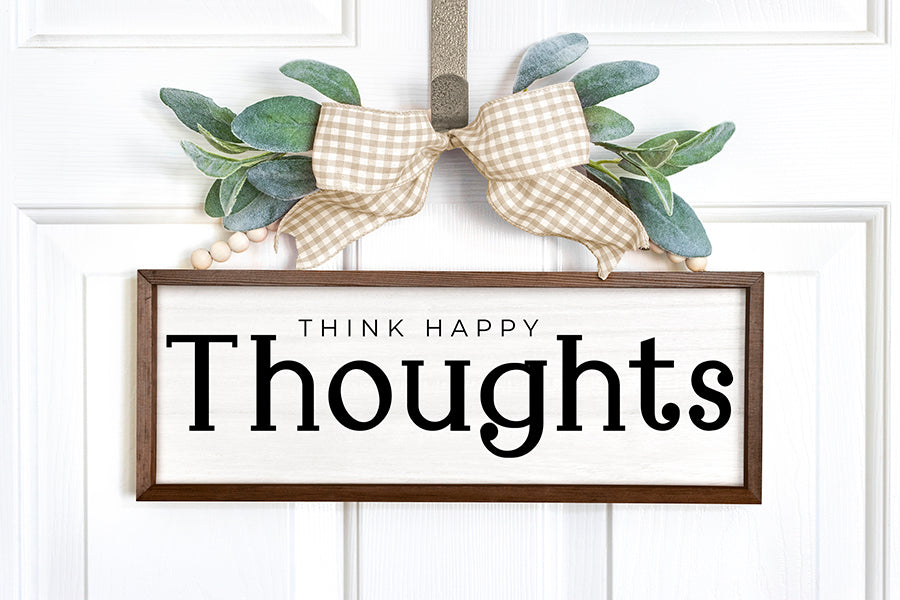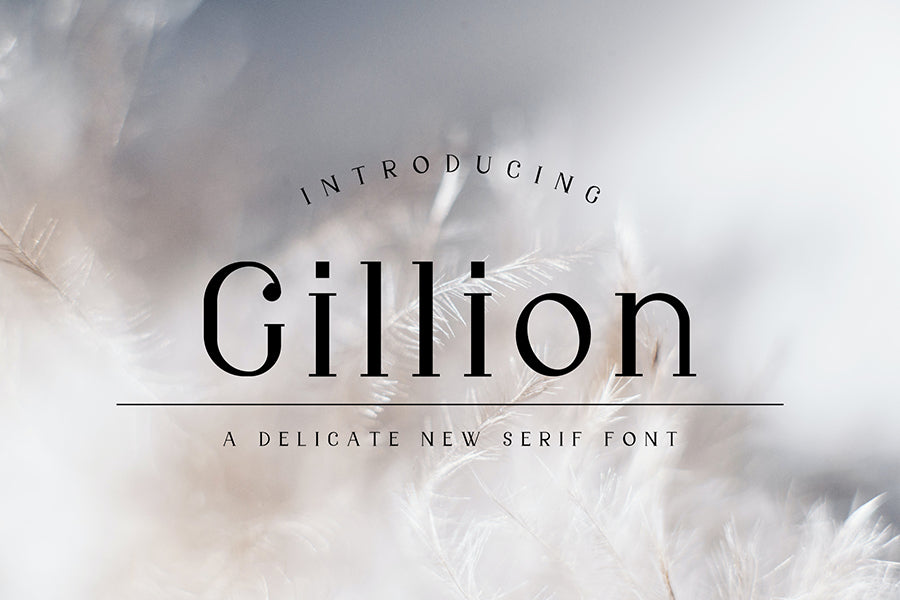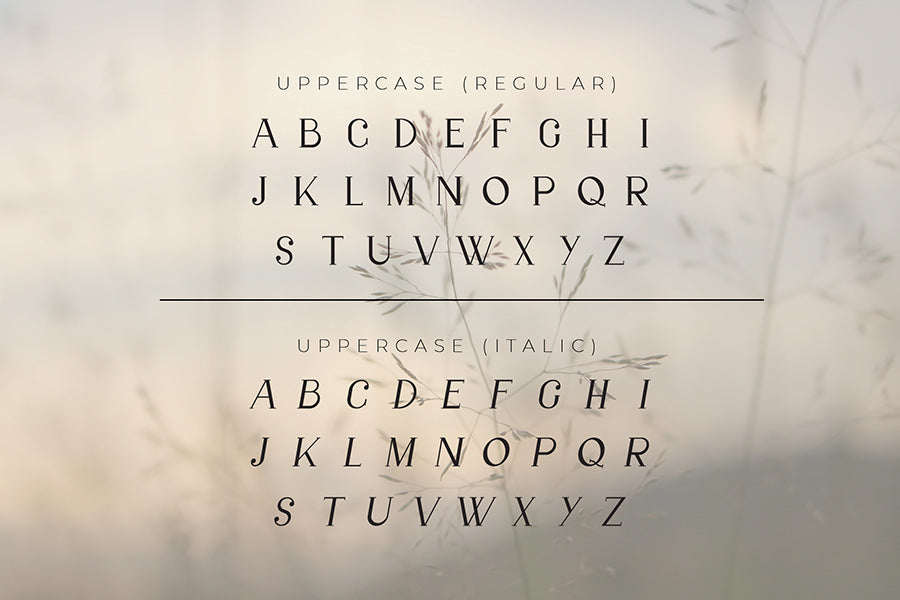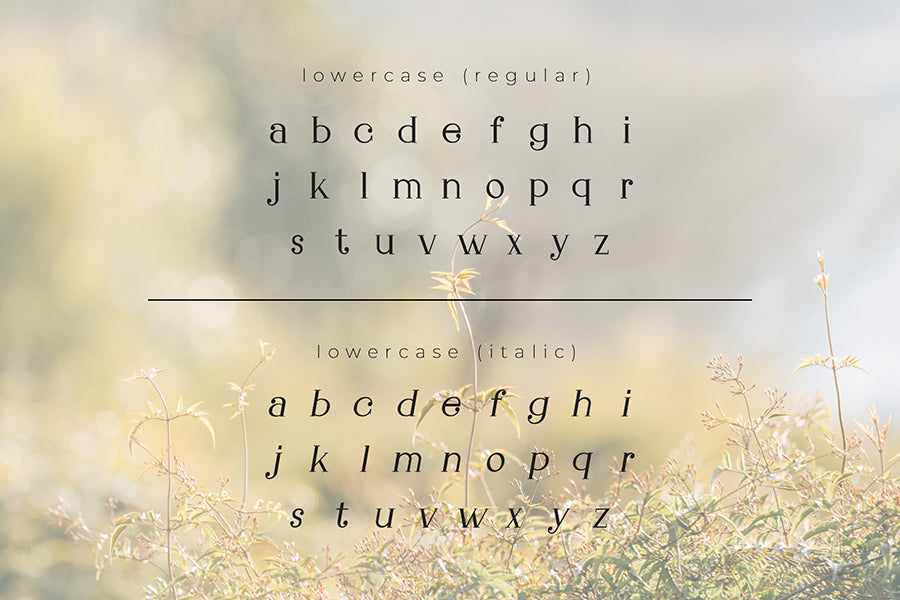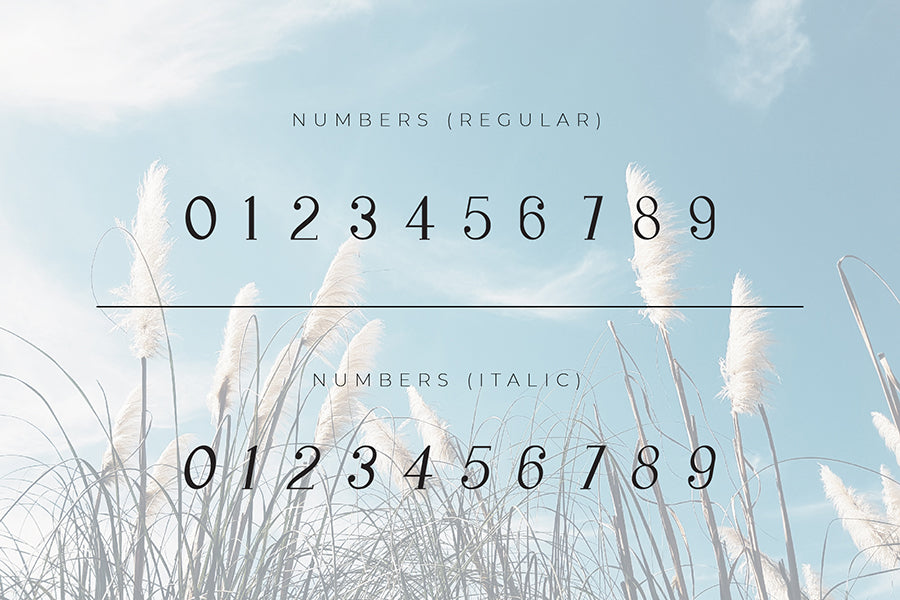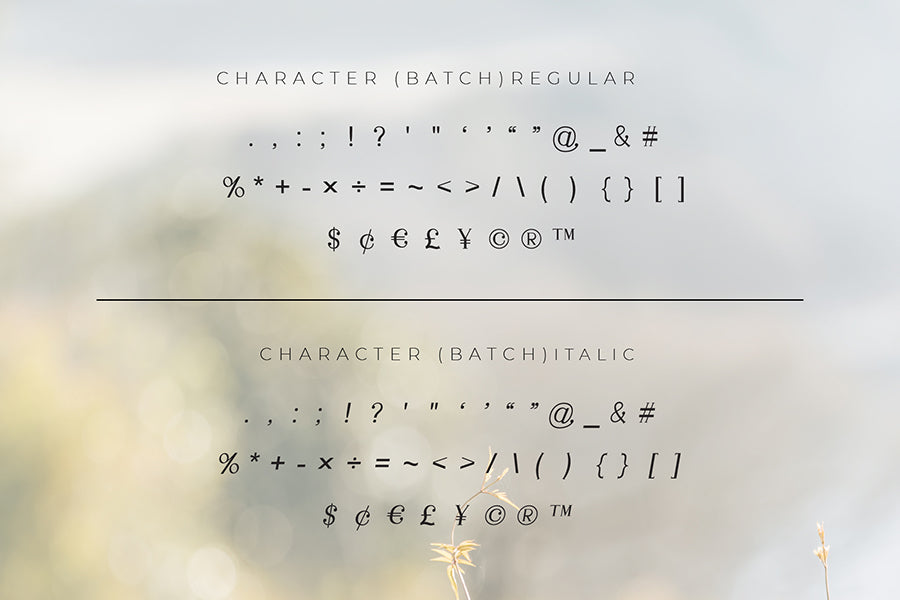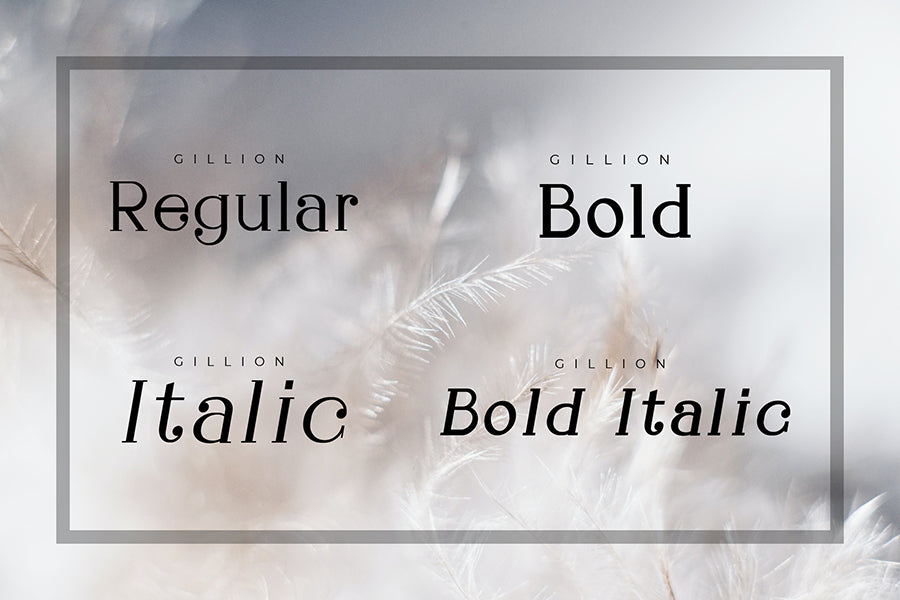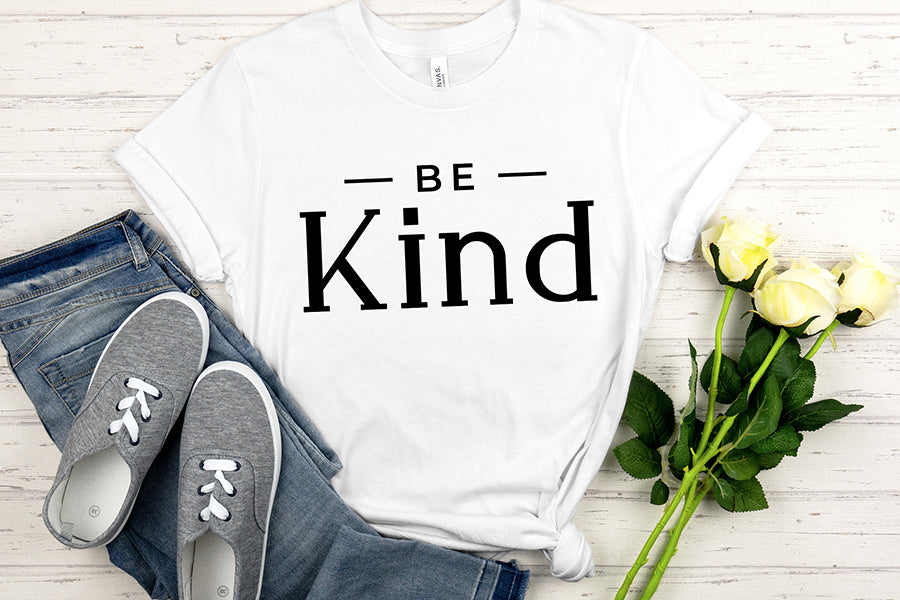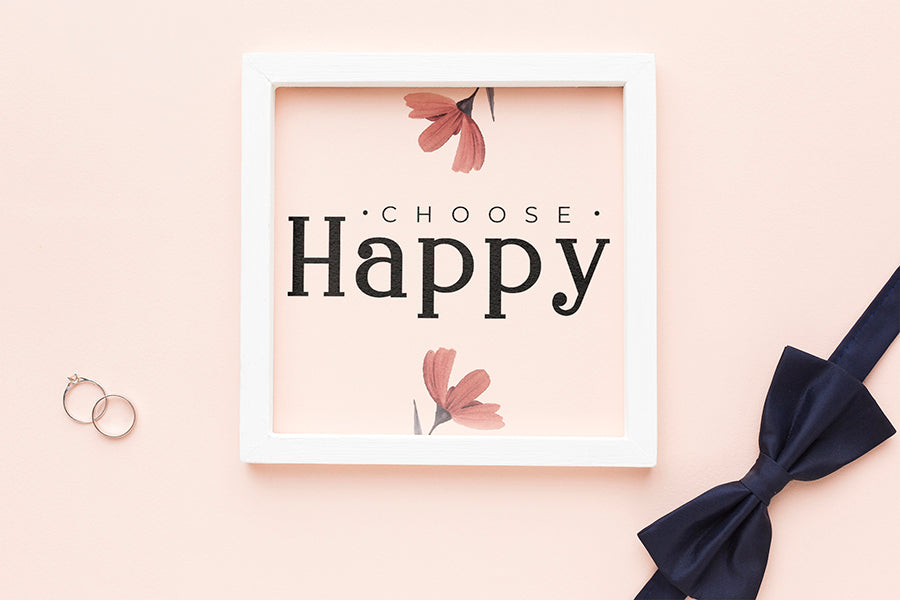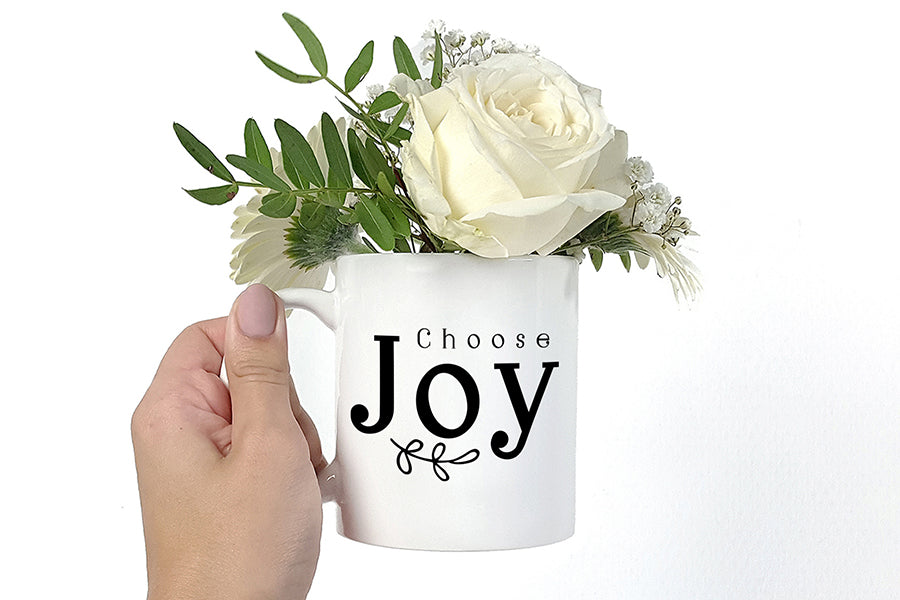
Gillion - A Delicate New Serif Font
Gillion is a delicate serif font featuring minimal & unique characters. It looks beautiful on its own and can be used for various crafting projects such as t-shirts, mugs, signs, greeting cards, wedding invitations, and more.